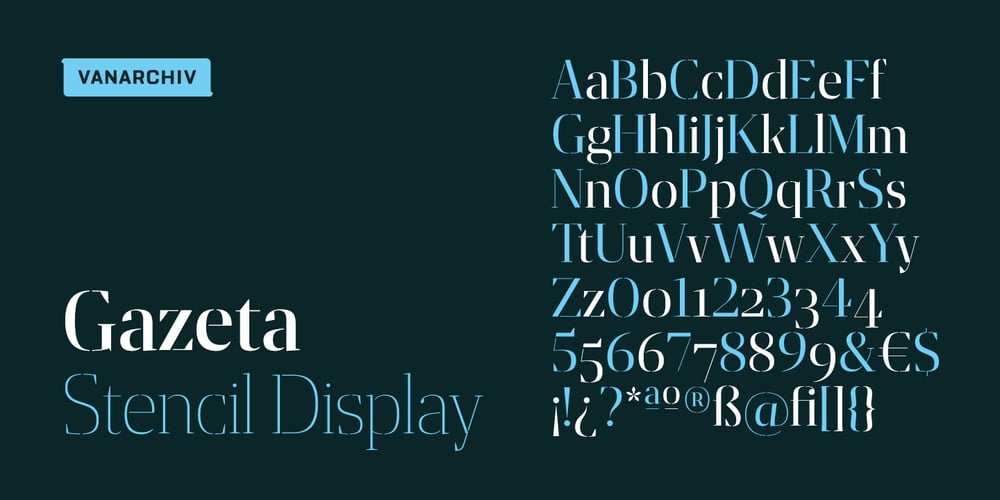
Gazeta Stencil Ds Font Family was designed by Ricardo Santos and published by Vanarchiv. Gazeta Stencil Ds contains 9 styles and family package options. This display stencil typeface is extension from Gazeta font family, where the letterform cuts are more mechanical without loosing their own natural structure. Italic versions are not available, only roman characters.